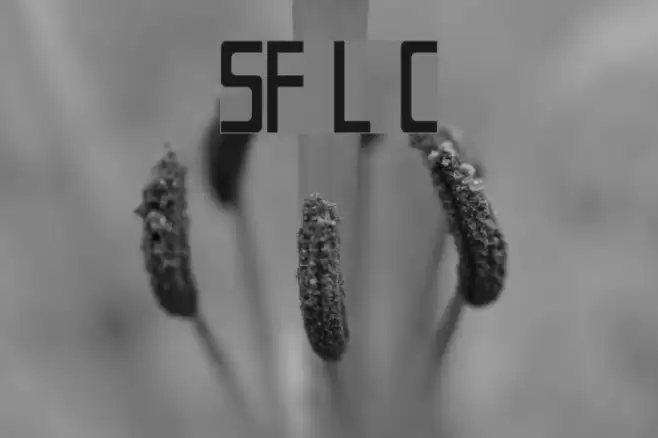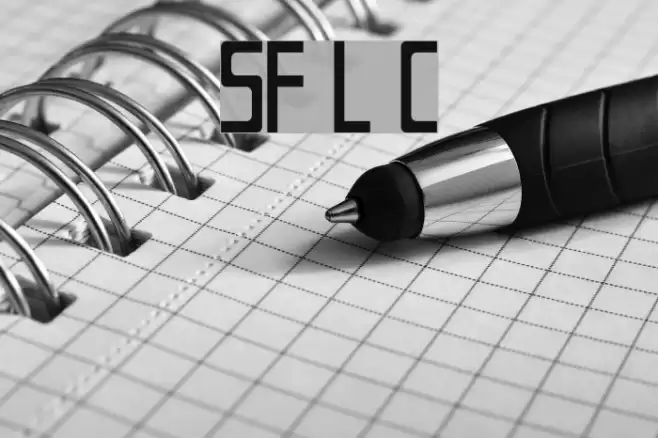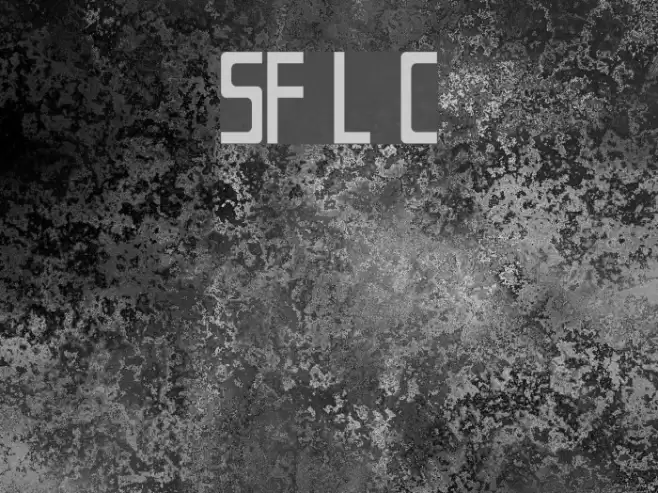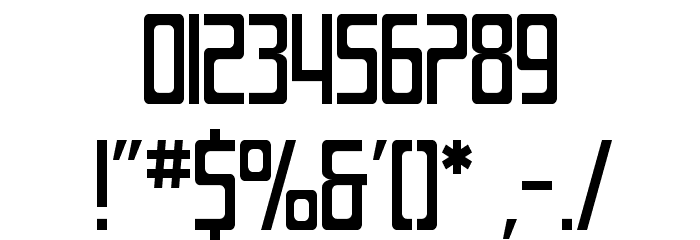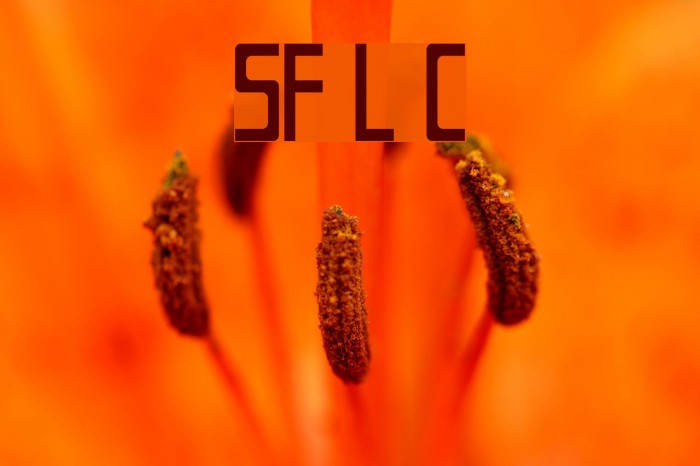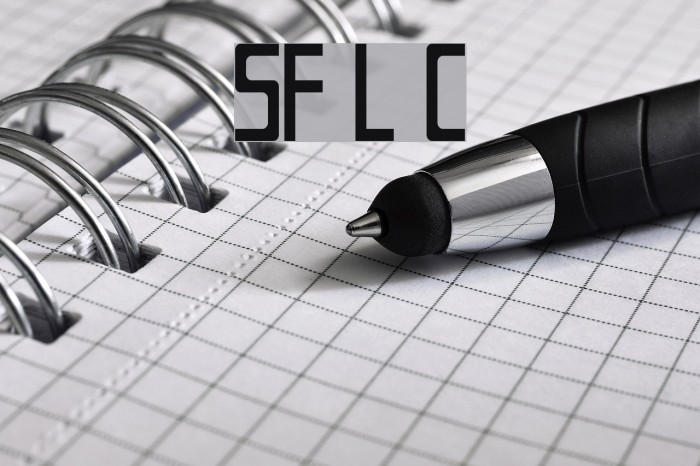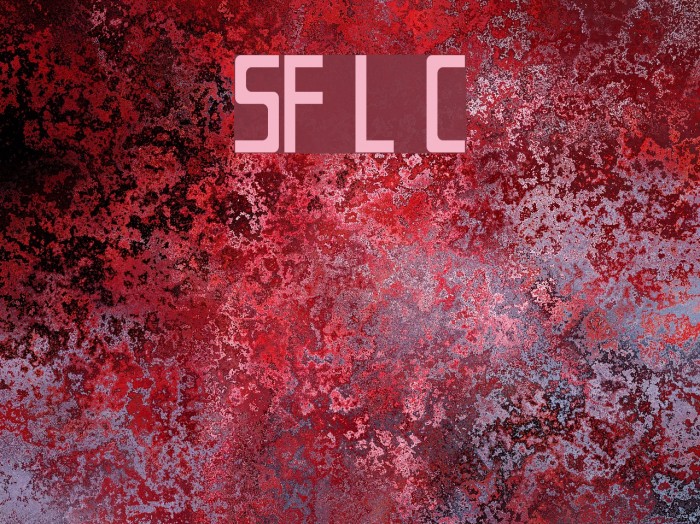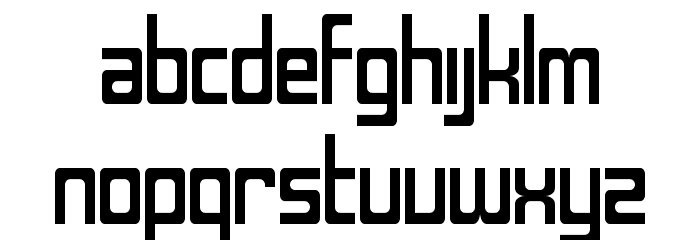
SF Laundromatic Condensed Font
SF Laundromatic Condensed Description
This font features a geometric and modern design with a condensed structure, giving it a sleek and efficient appearance. The characters are uniform in width, contributing to a clean and organized look. The uppercase letters are bold and assertive, while the lowercase letters maintain a consistent style, enhancing readability. The numerals are clear and distinct, making them suitable for various applications. Special characters are well-defined, adding versatility to the font's use. The overall design is minimalistic, with a focus on functionality and clarity.
A modern, geometric, and condensed font with a sleek and efficient design from Modern fonts.
- Proposed Projects: Ideal for branding, advertising, and editorial design where a modern and clean aesthetic is desired.
- Use Case: Headlines, Logos, Branding